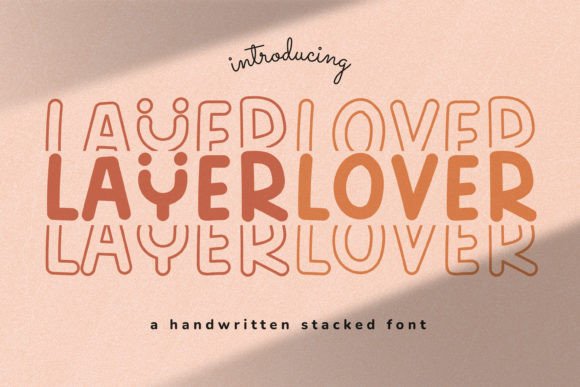
Layerlover: A Display Font That Earns Its Space
First glance at Layerlover isn’t about instant familiarity—it’s about presence. There’s a quiet confidence in its structure: clean but not sterile, structured but not rigid, with subtle layering cues in the terminals and counters that suggest depth without visual clutter. It’s not playful like a script font, nor austere like a high-contrast serif font. Instead, Layerlover occupies a refined middle ground—modern typography with architectural awareness. You feel it before you read it: calm authority, understated craft, and a slight tactile warmth, like letterpress ink just kissed the paper.
Where Layerlover Naturally Lands (and Why)
This isn’t a font for body copy or long-form editorial design. Layerlover is a display font built for impact at a glance—and it delivers when used with intention. In logo design, it holds weight without shouting: think boutique skincare brands, independent bookshops, ceramic studios, or sustainable apparel labels where clarity and quiet distinction matter more than trend-chasing.
For packaging design—especially premium product labels or apothecary-style jars—Layerlover adds sophistication without overcomplication. Its even color and open spacing translate beautifully to foil stamping or spot UV treatments. On merchandise like tote bags or enamel pins, it scales cleanly from 16pt to 120pt, retaining legibility and character across substrates.
In social media graphics and digital ads, Layerlover cuts through noise. Paired with a neutral sans serif font for captions or CTAs, it creates hierarchy that feels intentional, not forced. It works especially well for quote cards, limited-edition announcements, or brand manifesto visuals—places where tone and trust are as important as message.
It also shines in printable design: wedding invitations, art prints, or Canva templates where designers need a commercial font that reads as custom, not stock. And yes—it’s stable enough for Cricut projects and vinyl decals, provided you avoid ultra-fine hairlines at small sizes.
Where It Needs Guardrails
Layerlover thrives in short bursts: headlines, brand marks, pull quotes, decorative accents. Don’t try to set full paragraphs in it—even at 18pt, rhythm stumbles. Its strength lies in contrast, not continuity. Use it for “Handcrafted Since 2012,” not “Our process begins with ethically sourced clay, hand-thrown on a kick wheel…”
Avoid using it for supporting text, navigation menus, or interface labels in web design. It’s not built for functional scanning. Likewise, steer clear of tight line-heights or cramped containers—its breathing room is part of its voice.
Uppercase settings sing. Lowercase has charm but loses some of its structural elegance—test both, but default to caps for logos and hero banners. And while it handles light backgrounds gracefully, avoid low-contrast combinations (e.g., grey-on-grey) unless you’re aiming for deliberate subtlety—and even then, verify readability on actual devices.
What It Does to Your Work—Beyond Aesthetics
Layerlover quietly elevates perceived professionalism. It doesn’t scream “expensive,” but it signals care—like choosing unbleached cotton over polyester. That translates directly to audience trust, especially among discerning buyers who associate thoughtful typography with authentic brand identity.
In editorial design or blog graphics, it sets a confident, unhurried mood—ideal for long-read intros or thematic headers. It doesn’t compete with photography; it frames it. In digital products, it reinforces premium positioning without resorting to clichéd luxury tropes (think gold foil or excessive serifs).
Consistency is another win: because Layerlover has such a distinct yet restrained personality, it anchors a system. Once chosen for a logo, it naturally extends into social posts, email headers, and packaging without feeling repetitive—just cohesive.
Designer Notes You’ll Actually Use
Final Thought: Not Every Project Needs Layerlover—but Many Deserve It
Layerlover isn’t a Swiss Army knife. It’s a well-honed chisel—precise, reliable, and expressive only when guided by clear intent. It won’t solve weak concepts or poor layout. But in the hands of a designer who understands when to let type breathe and when to let it lead, Layerlover becomes more than a font. It becomes part of the story—calm, considered, and unmistakably human.
If your next project values authenticity over algorithmic appeal—if it speaks to people who notice the curve of a lowercase ‘g’ or the balance between negative space and form—Layerlover isn’t just appropriate. It’s quietly essential.